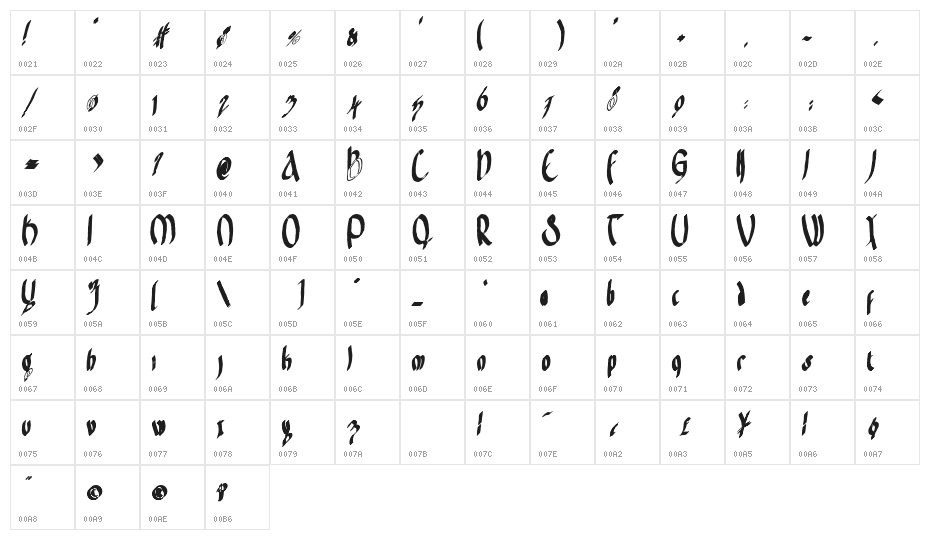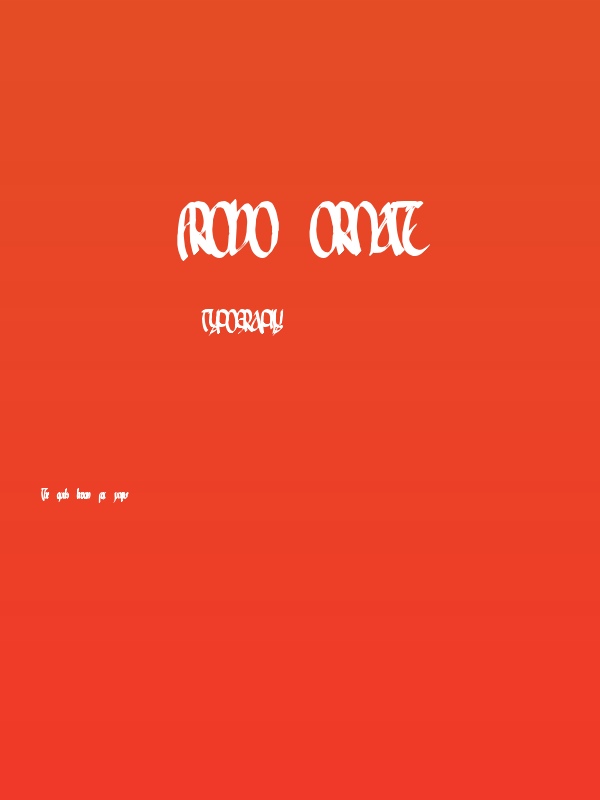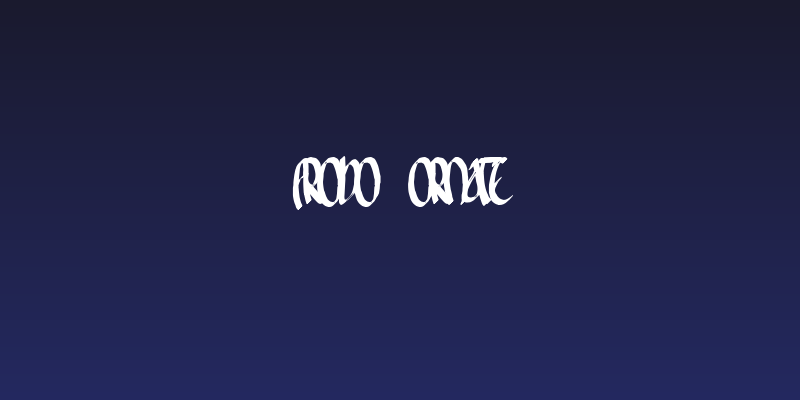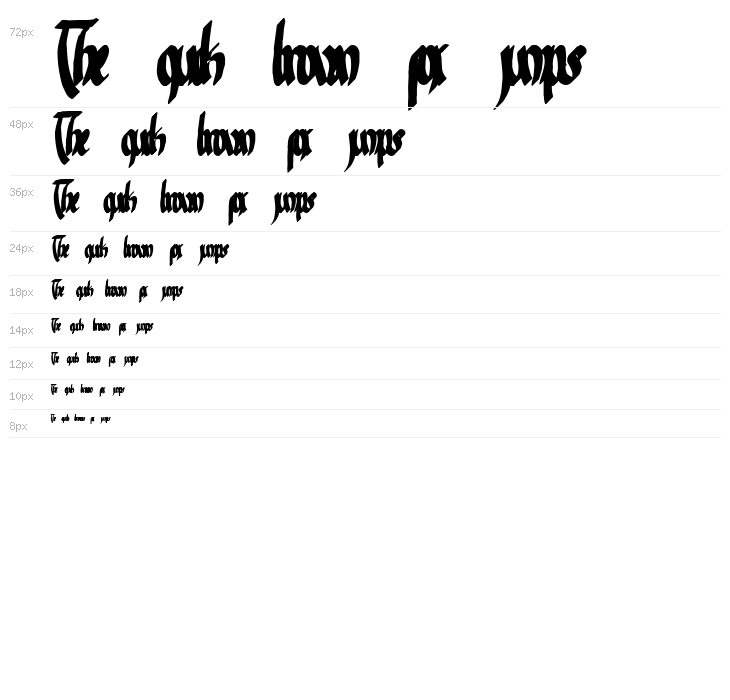
Frodo Ornate Font
Frodo Ornate Description
This font features a highly decorative and ornate style, characterized by its intricate and elaborate letterforms. The uppercase letters exhibit a bold, flowing design with exaggerated curves and flourishes, giving it a dramatic and artistic appearance. The lowercase letters maintain the same ornate quality, with a slightly more compact form. Numbers and special characters follow the same elaborate style, ensuring consistency throughout. The overall aesthetic is reminiscent of calligraphic or medieval script, making it suitable for projects that require a touch of elegance and sophistication.
| Proposed Projects | Ideal for invitations, certificates, branding, and any project that requires a touch of elegance and sophistication. |